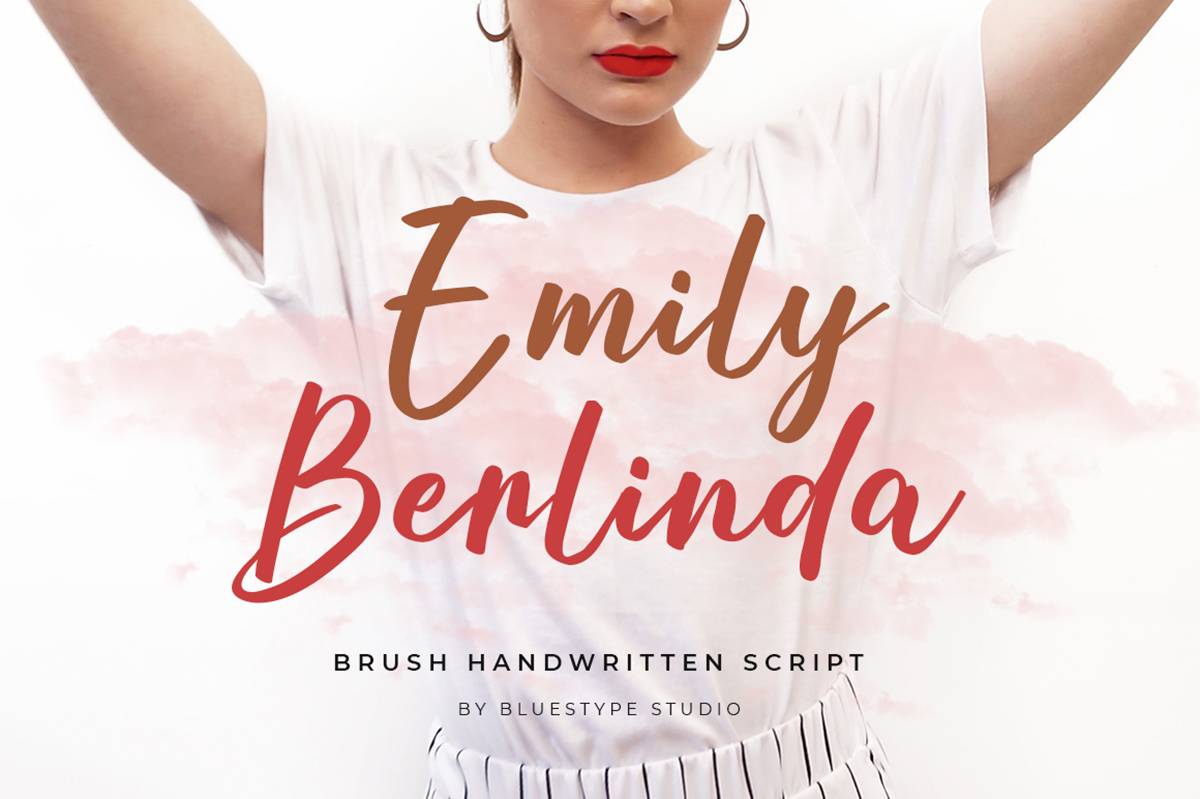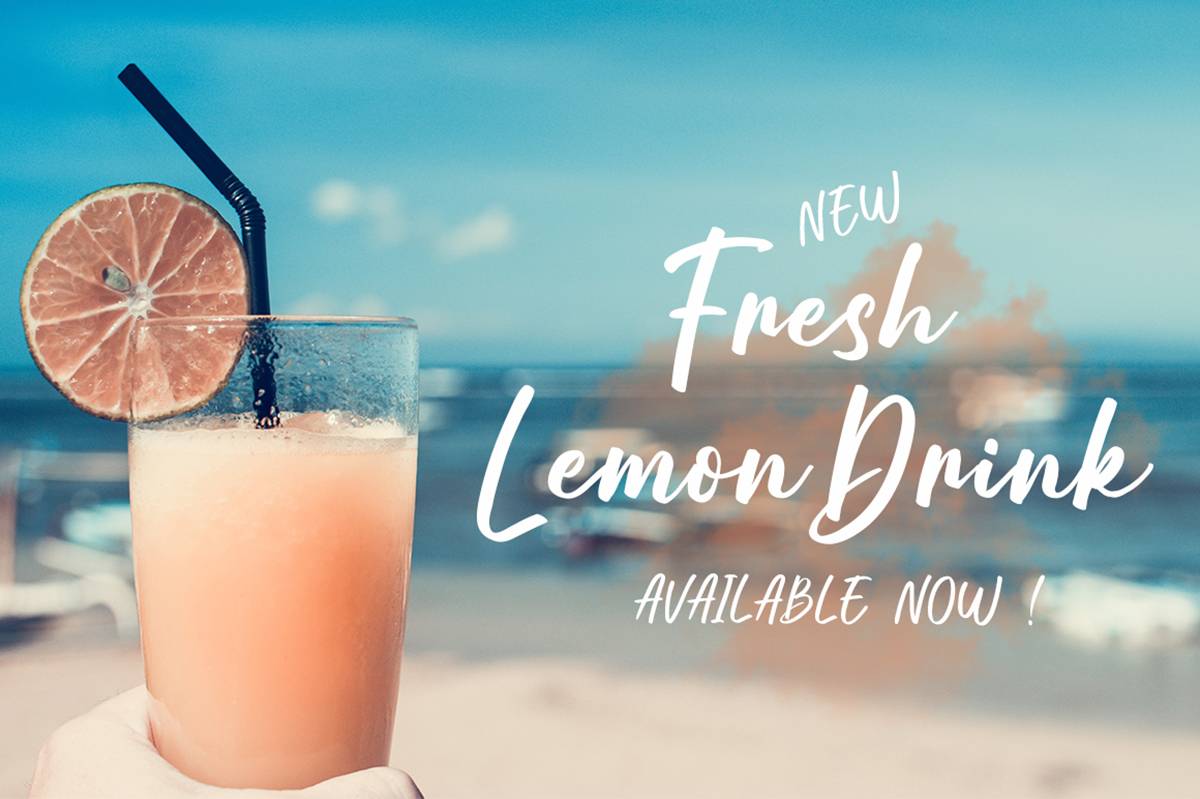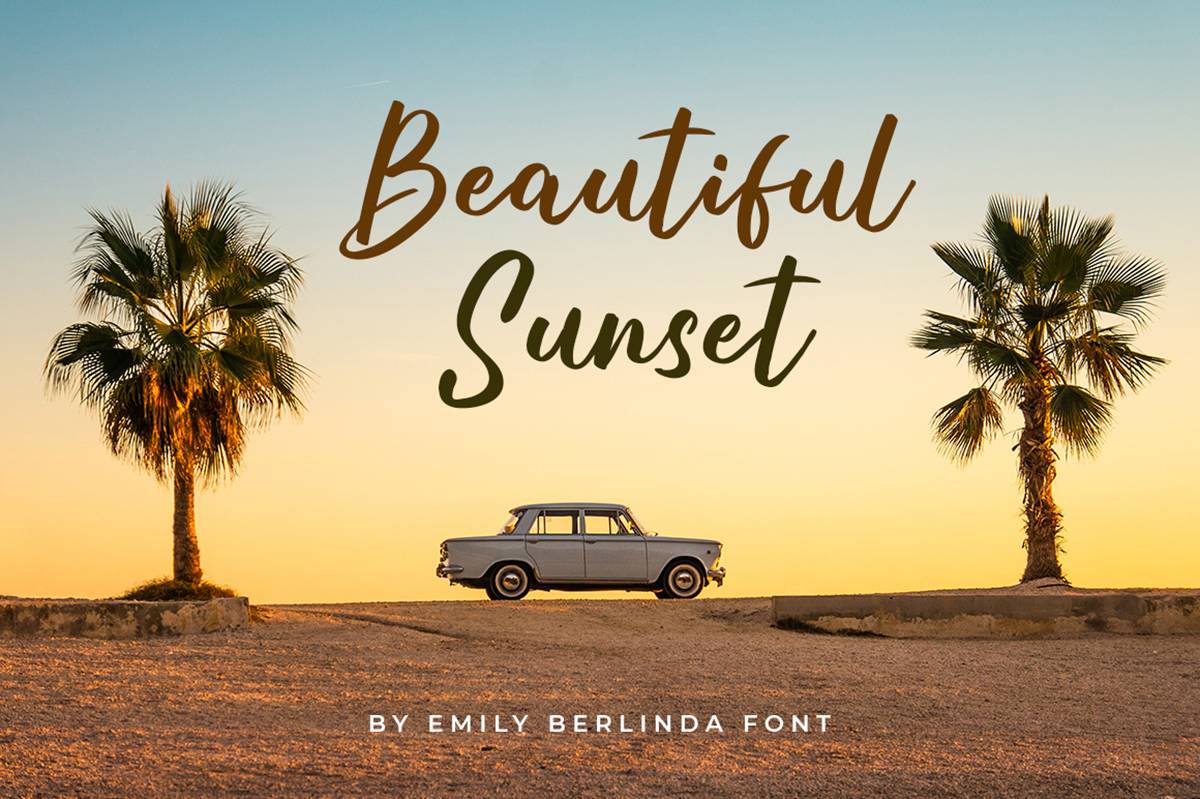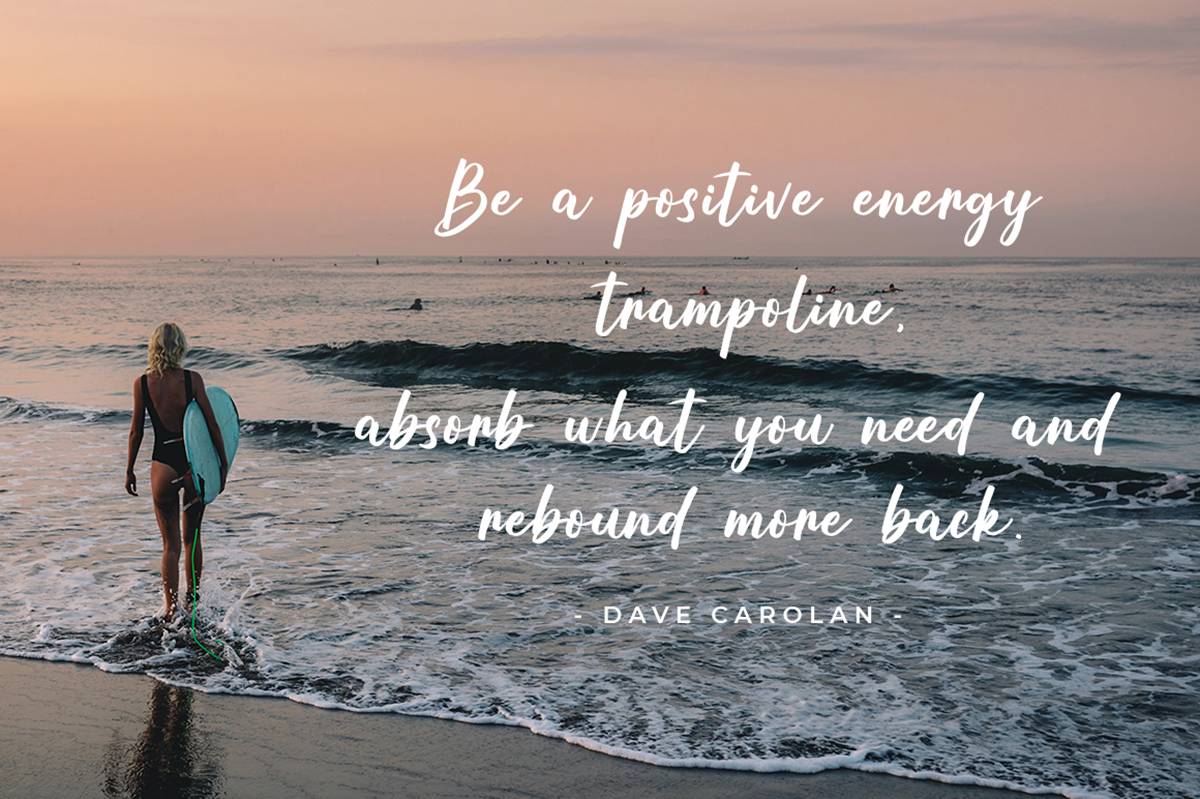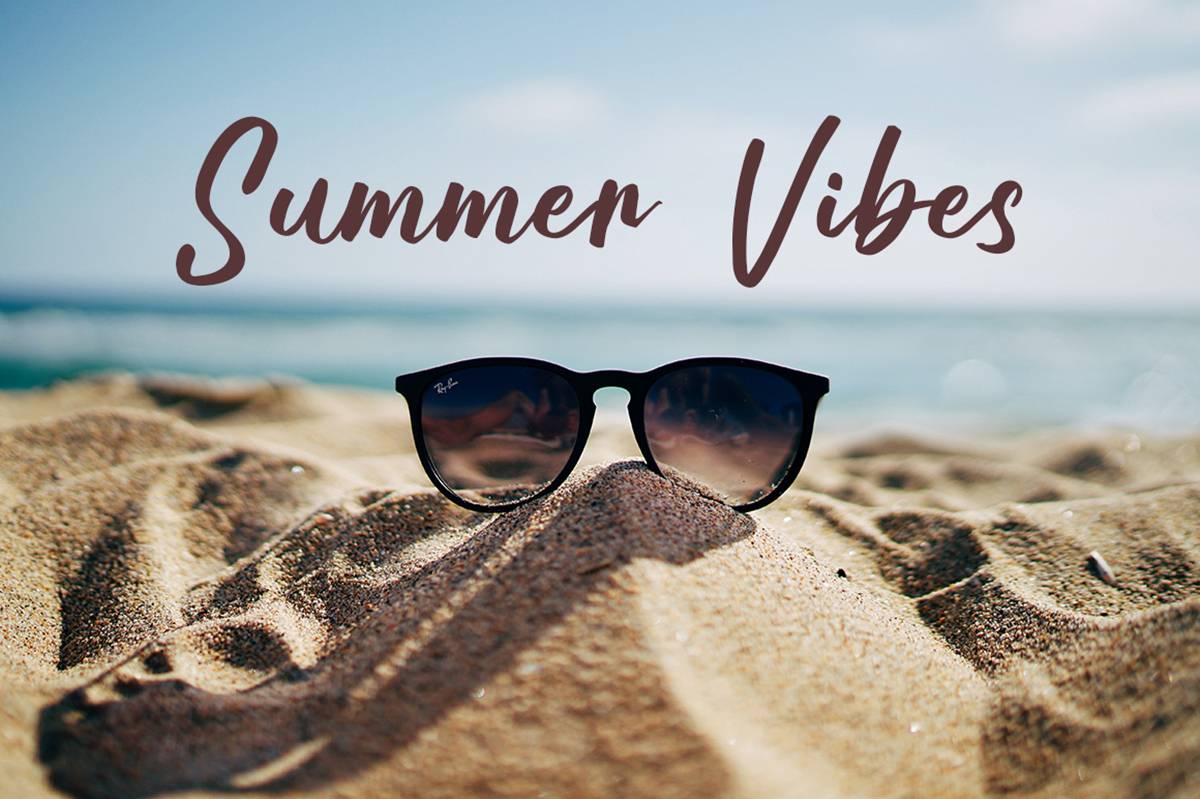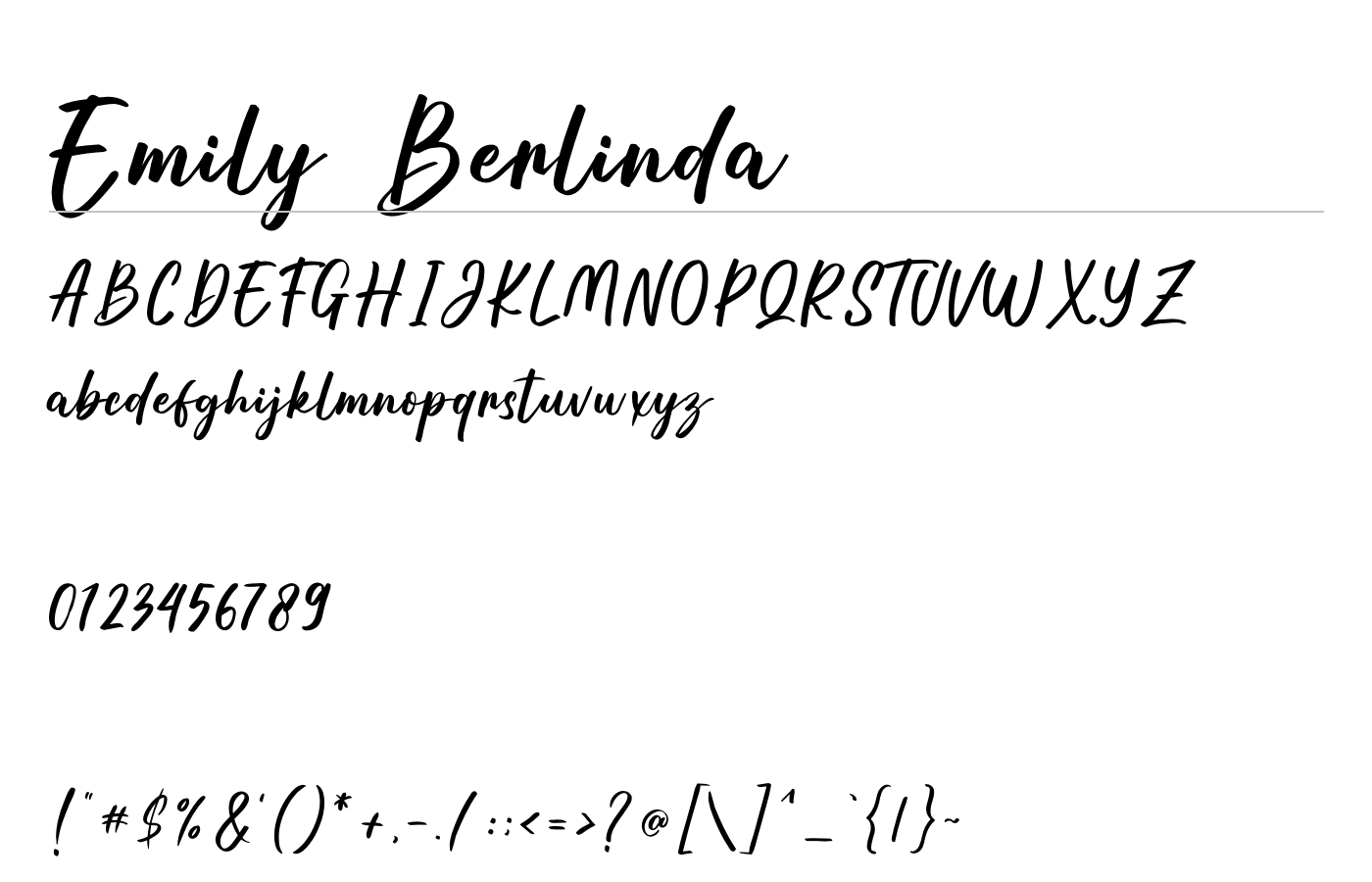
Emily Berlinda is a graceful script font with a casual yet elegant style, featuring smooth, flowing strokes and a handwritten feel. Its moderate weight and lively letterforms make it perfect for adding a personal touch to invitations, branding, and creative projects that seek a warm, approachable personality. This font works well in headlines and logos where a stylish, modern script is desired without sacrificing readability.
Emily Berlinda Font
About Emily Berlinda Font
| Font family | Emily Berlinda Font |